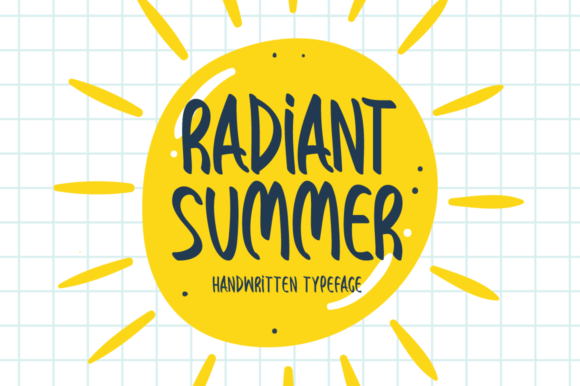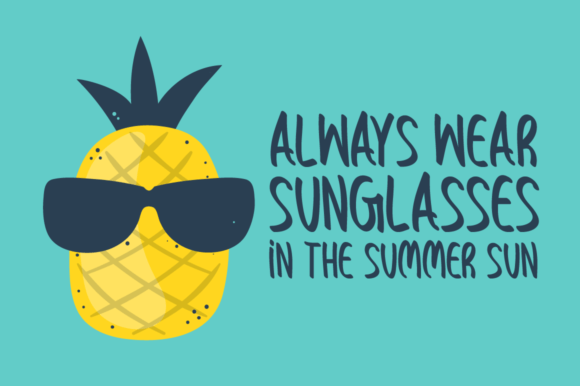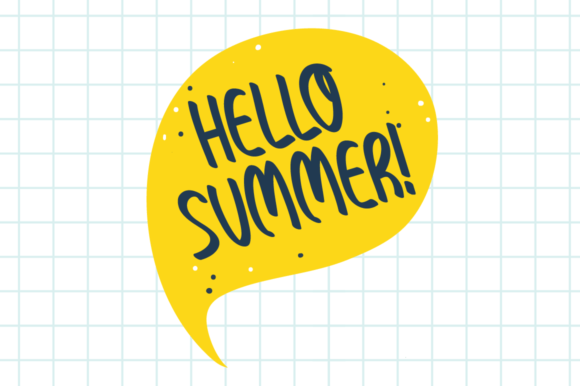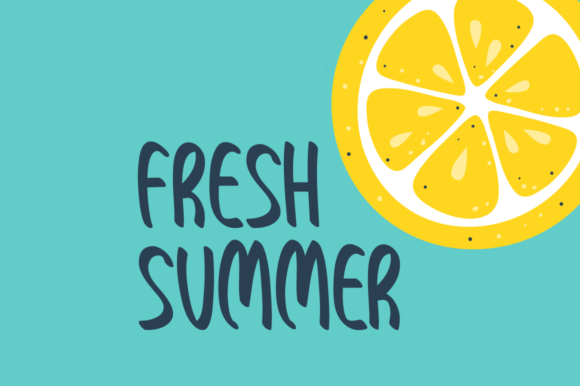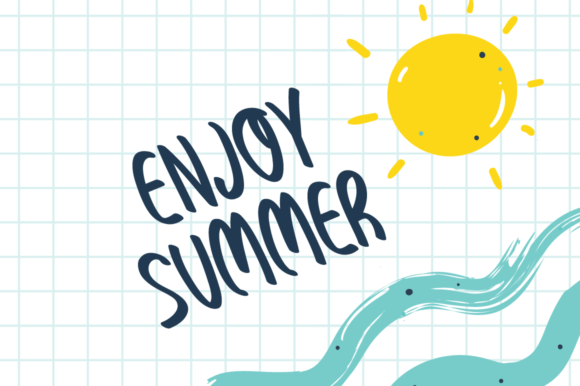
Radiant Summer Font
About Radiant Summer Font
Radiant Summer emerges as a delightful and laid-back handwritten font that effortlessly encapsulates a cute and casual aesthetic. Regardless of the subject matter, this font stands as an invaluable addition to your font library, boasting the potential to elevate any creative endeavor it graces.
With its charmingly irregular strokes and playful nuances, Radiant Summer brings a refreshing and approachable vibe to your designs. The handwritten style imparts a sense of authenticity and whimsy, making it a perfect choice for a wide range of applications, from personal projects to professional design work.
The versatility of Radiant Summer is a key strength, allowing it to seamlessly adapt to various themes and design contexts. Whether you’re crafting invitations, designing social media graphics, or working on branding materials, this font proves itself as a reliable and charming companion.
The inherent cuteness of Radiant Summer makes it particularly well-suited for projects that aim to evoke a light-hearted and friendly atmosphere. Its casual charm invites engagement and resonates with audiences looking for a touch of warmth and personality in the visuals they encounter.
What sets Radiant Summer apart is its ability to effortlessly enhance the overall appeal of your creations. The font serves as more than just a typographic choice—it becomes a visual asset that adds character and charisma to your designs. This makes it an essential tool for designers and creators seeking to infuse their projects with a touch of playfulness and charm.
Incorporating Radiant Summer into your fonts’ library opens up a world of creative possibilities. Its potential to uplift and enhance various design projects makes it a go-to choice for those who appreciate the impact of charming and casual handwritten aesthetics. Elevate your creations with the endearing and versatile charm of Radiant Summer.